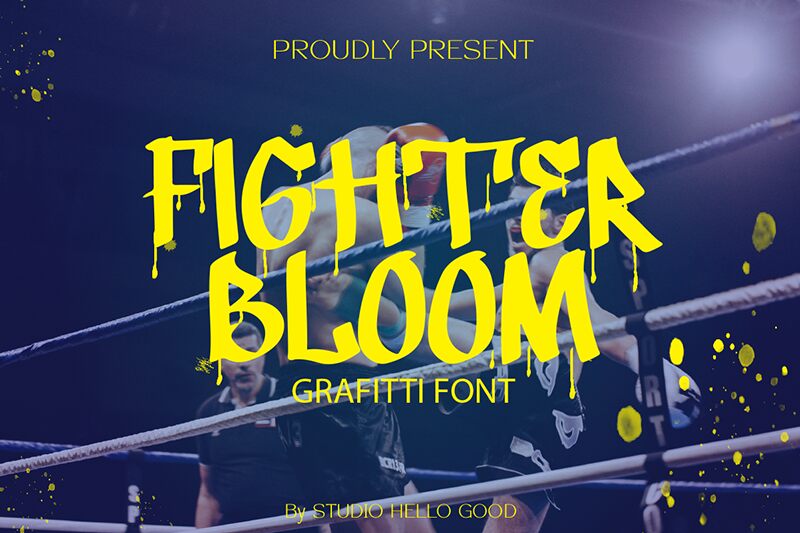
Fighter Bloom font by Studio Hello Good is an energetic free graffiti font with an urban and rebellious vibe. It has a graffiti-inspired style that is dynamic, edgy, and vibrant, with full of expressive character. The design is casual and stands out with the artistic flair that grabs attention. This work is a connection between artistic flair and the dynamic emotions inherent to street art.
Its artistic flair makes creative Fighter Bloom suitable for interested writers and poets to promote special events or make their own business cards. On the other hand, its effectiveness in reaching a wide audience means this typeface fits many different website themes and is ideal for movie posters, food labels, webinars, landing pages, or newsletter sections.